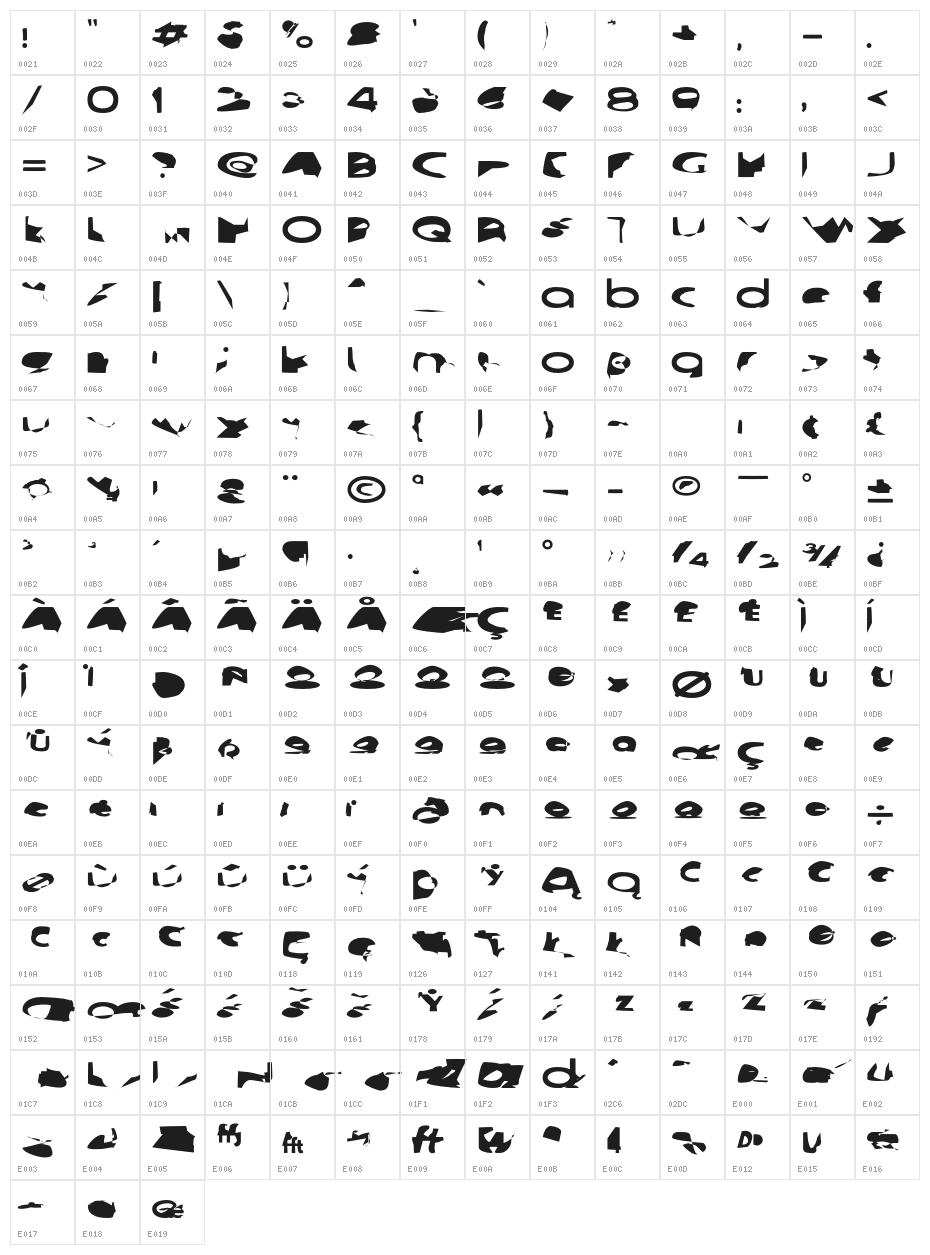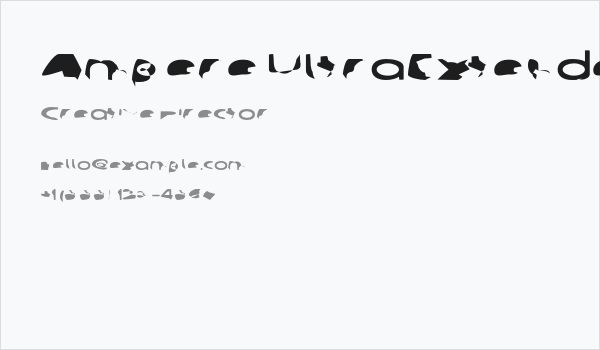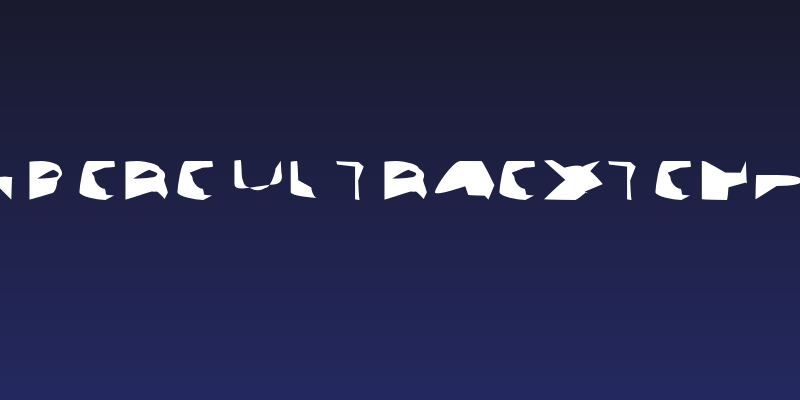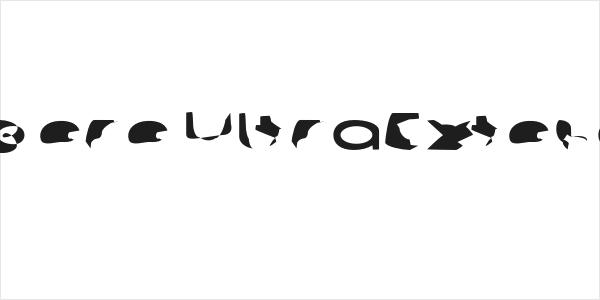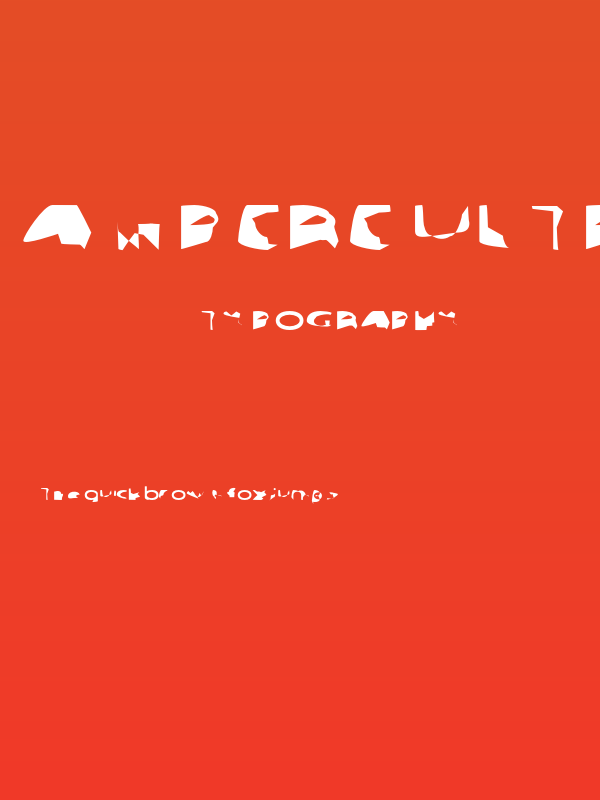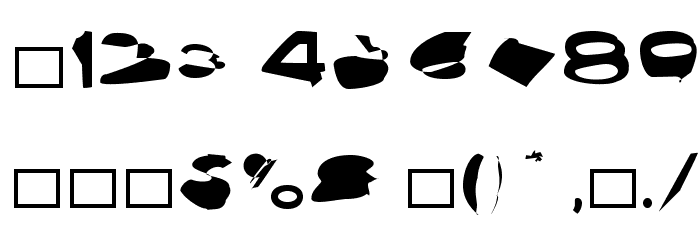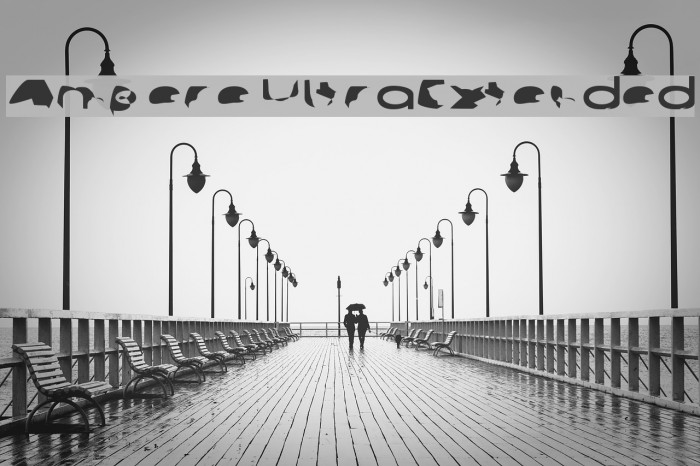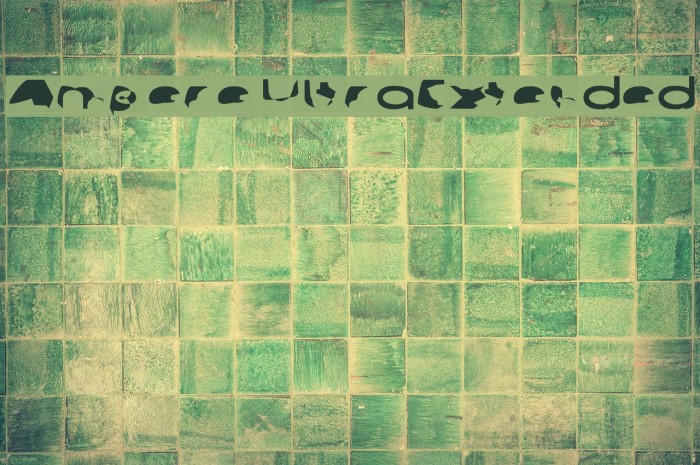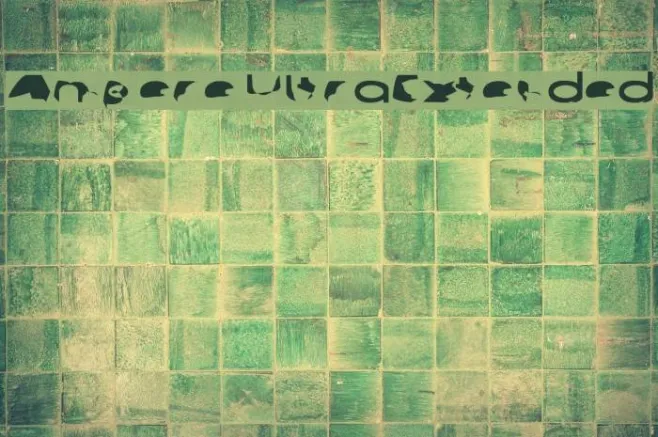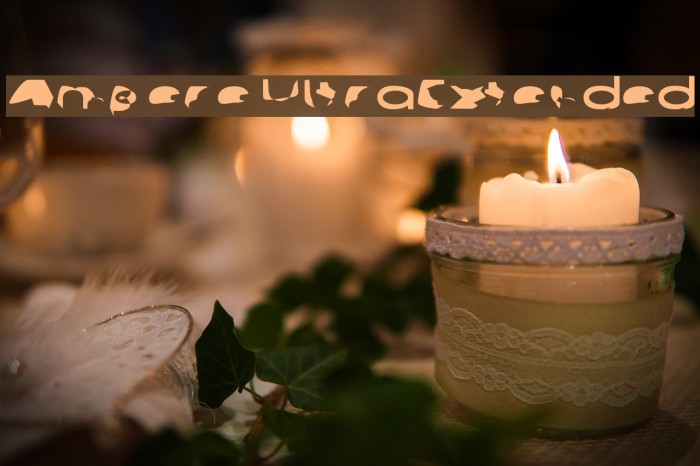
Ampere UltraExtended Font
Ampere UltraExtended Description
This font presents a highly stylized and abstract design, characterized by its fragmented and distorted letterforms. The uppercase and lowercase letters, as well as the numbers, exhibit a unique, deconstructed appearance, with parts of each character seemingly cut away or shifted. This creates a dynamic and edgy aesthetic, making it stand out as a bold statement piece. The special characters follow the same design philosophy, maintaining consistency across the set. The overall look is modern and avant-garde, suitable for projects that aim to capture attention and convey a sense of innovation and creativity.
| Overall Style | Modern, Avant-garde |
| Use Case | Headlines, Logos, Artistic projects |
| Proposed Projects | Ideal for experimental design projects, album covers, modern art installations, and branding for cutting-edge tech companies. |